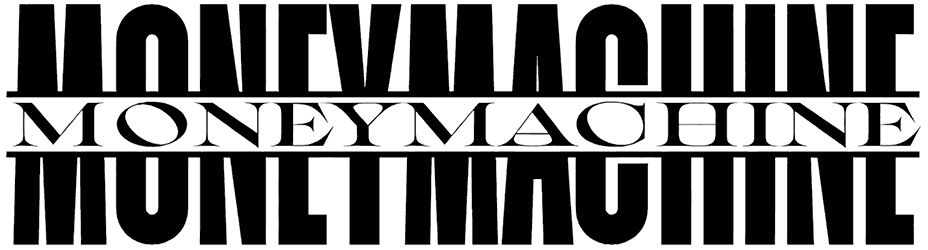
Moneymachine is an incredibly versatile luxury font that has various applications ranging from logos, business cards, and digital banners, to blog posts. Considering its potential in leveling up the visibility of your graphic content to the highest possible level by conveying a sense of eerie, jauntiness, and mesmerizing, the lack of numbers and lowercase letters would not be negligible.
So we strongly recommend you pick up this money font and make the best possible outcome out of its two distinctive styles.